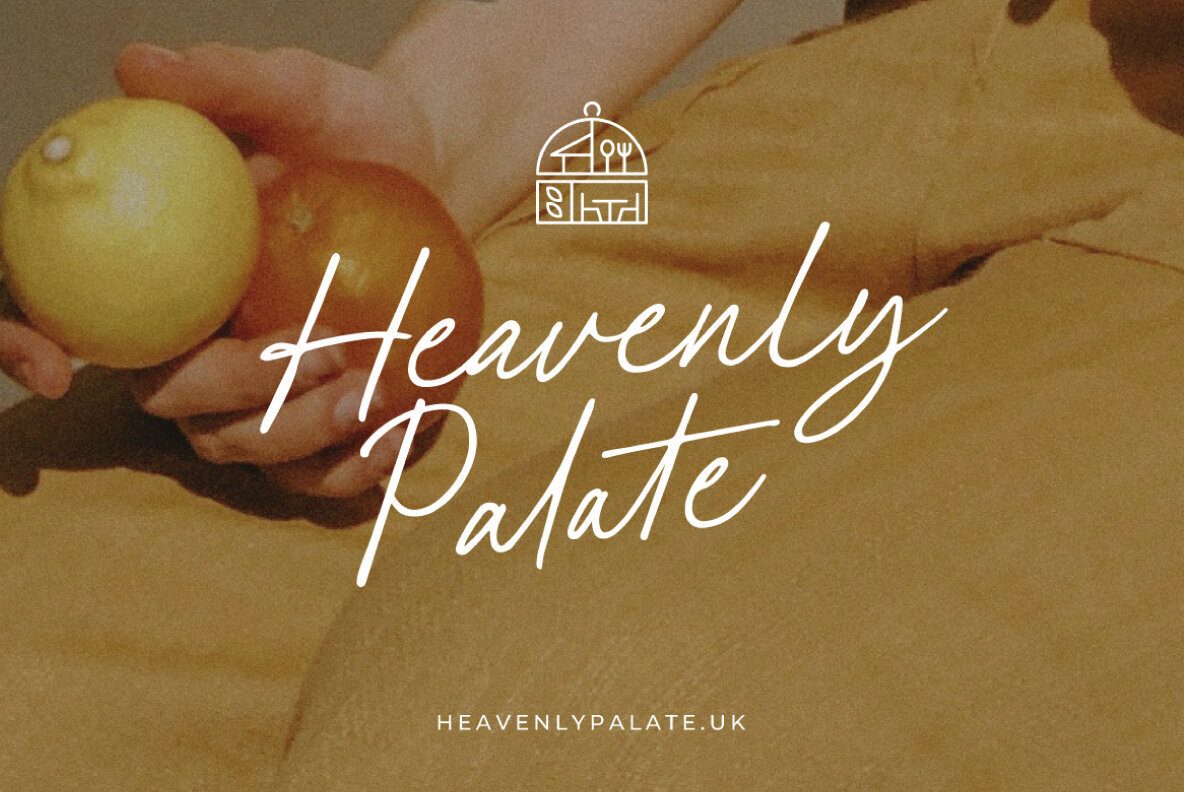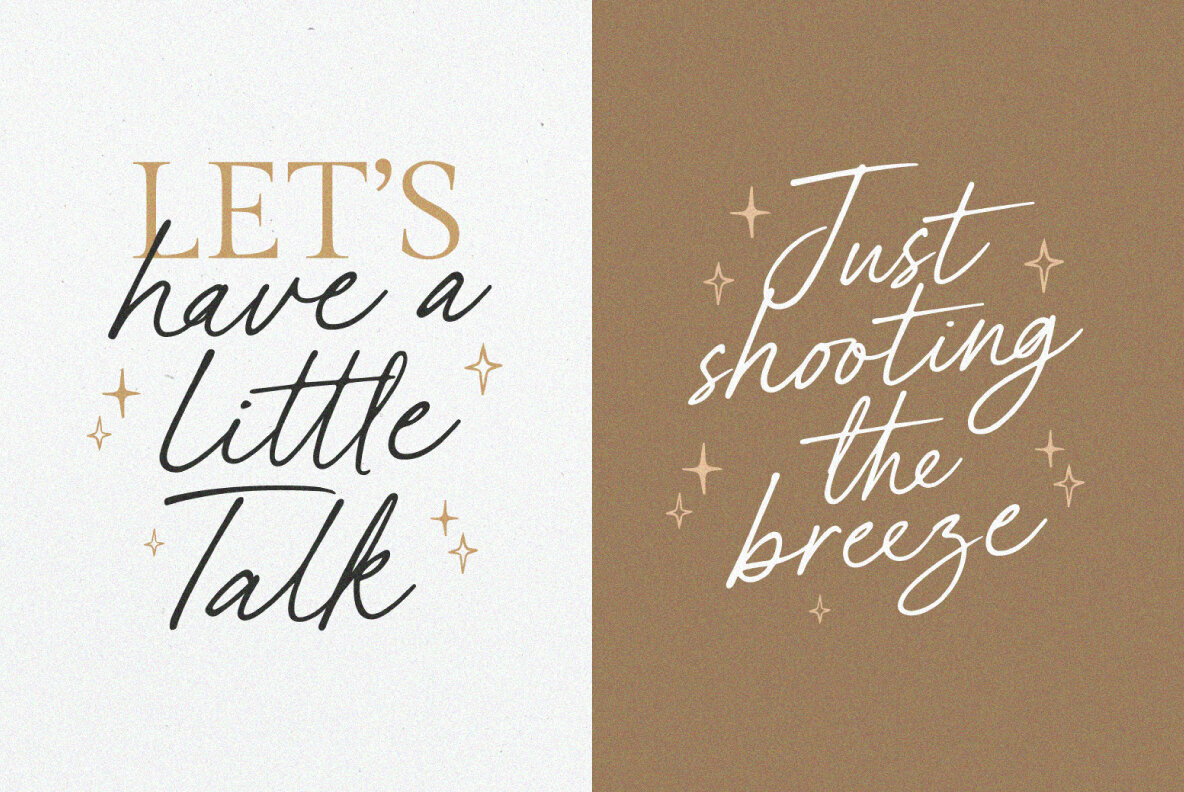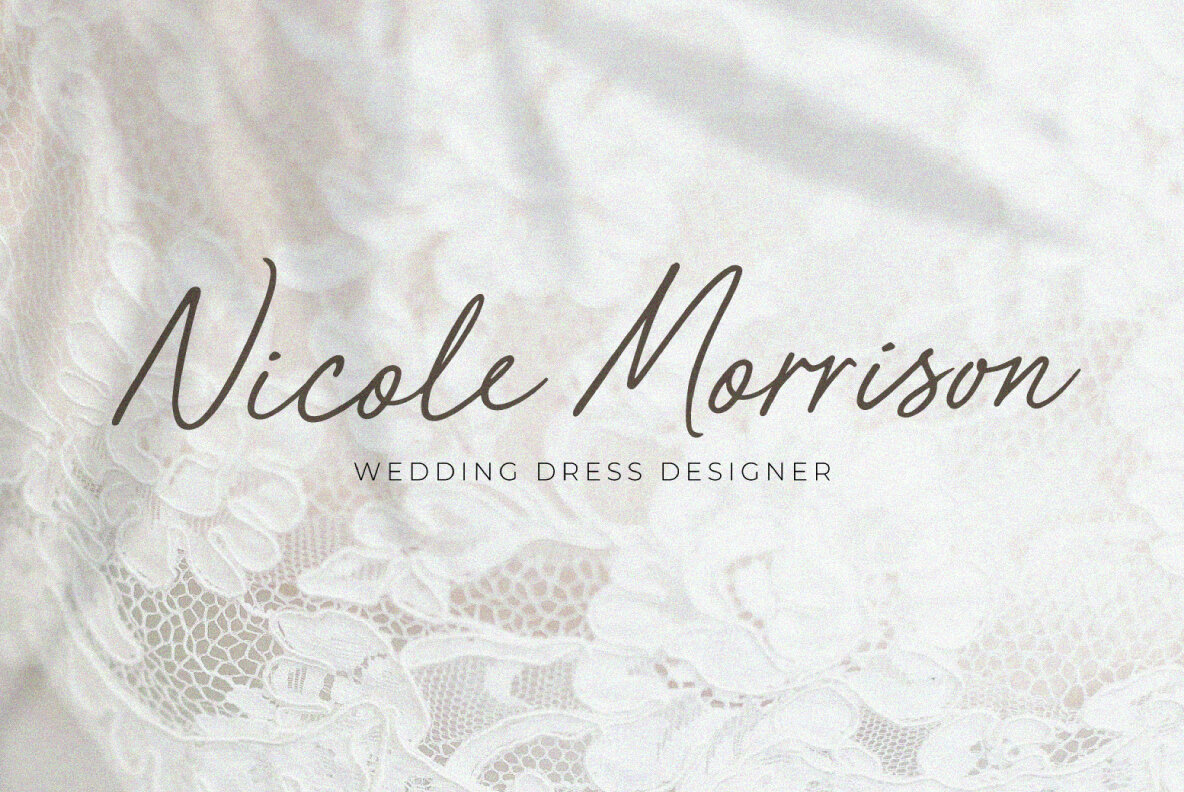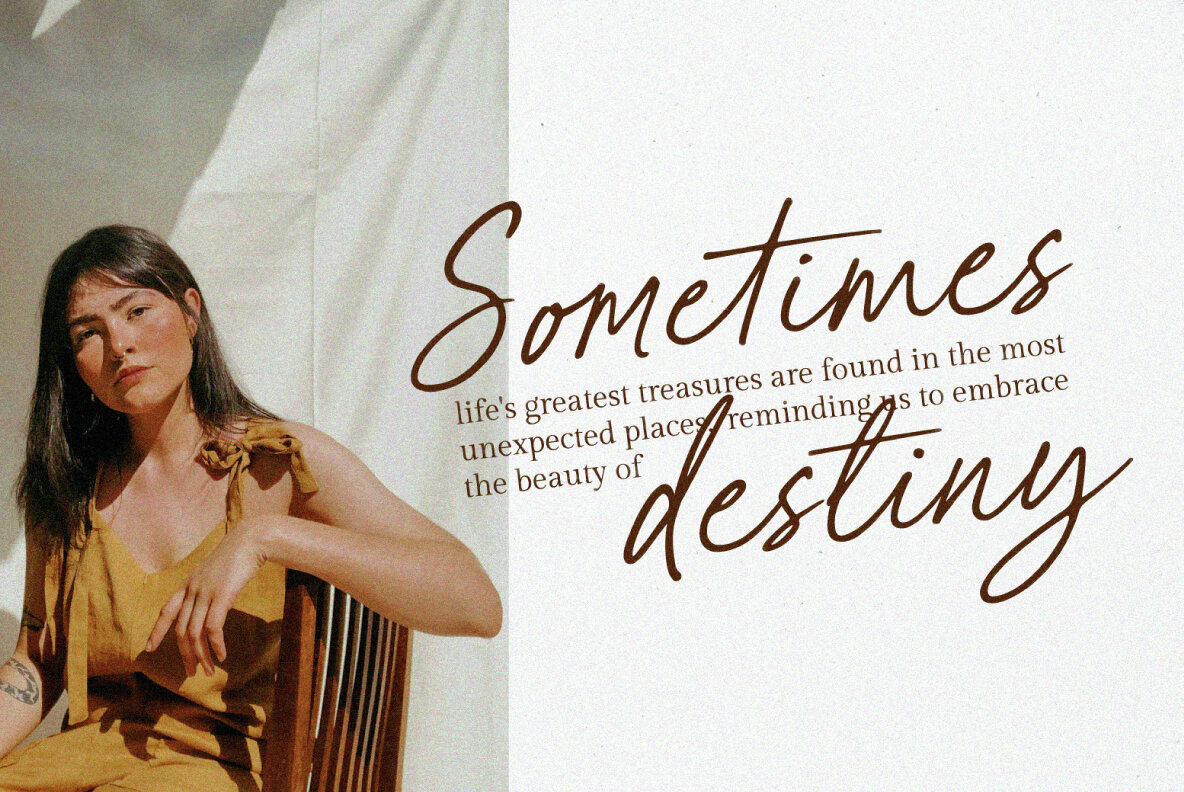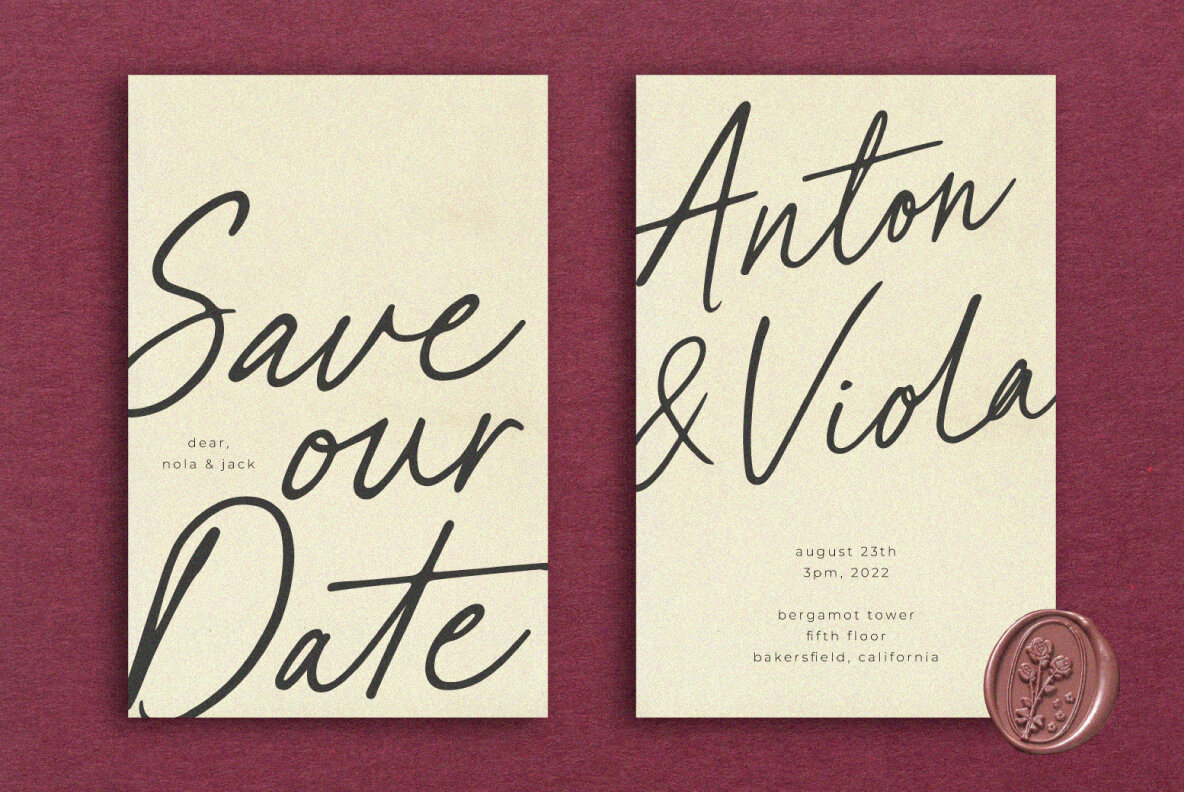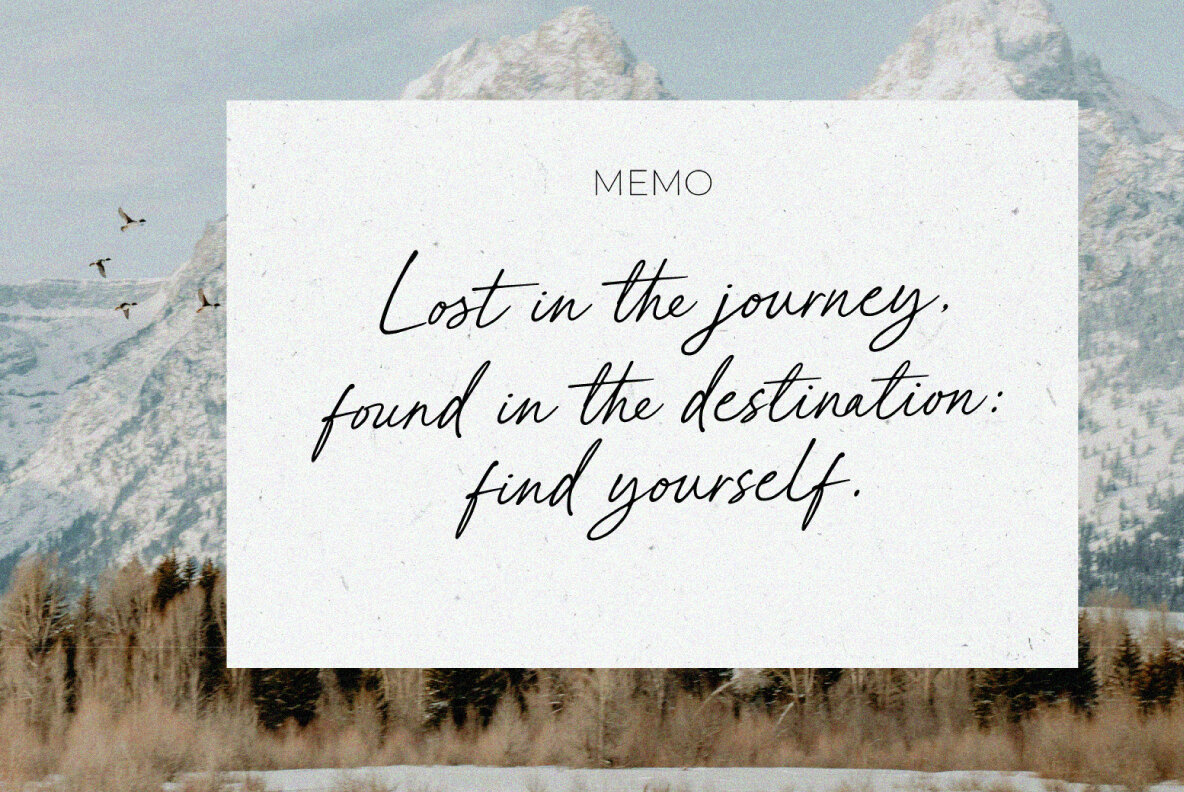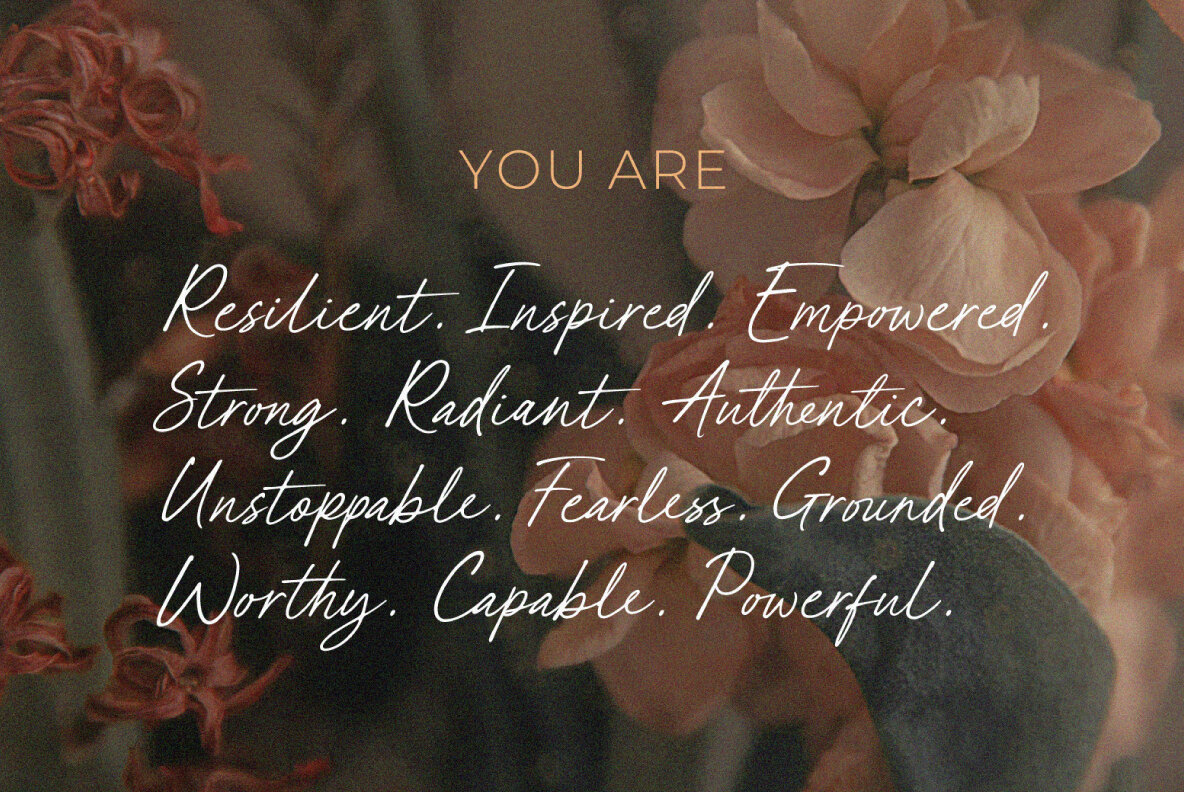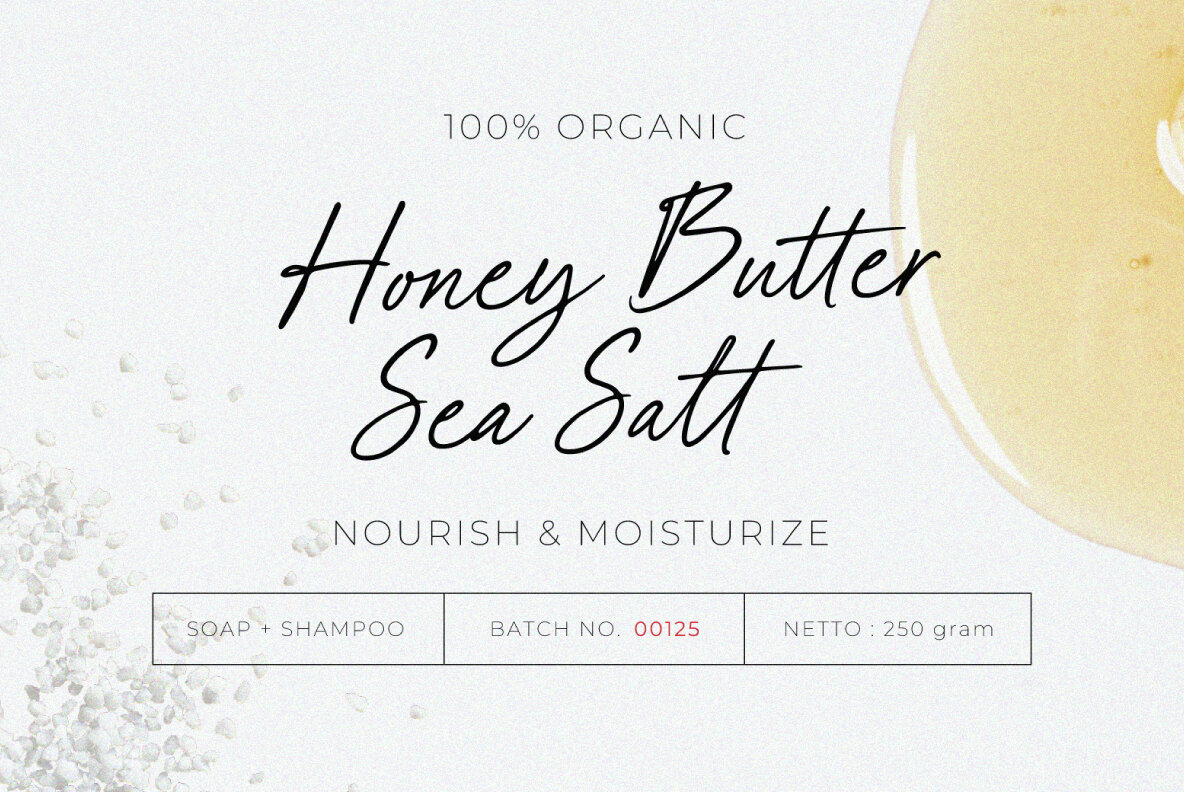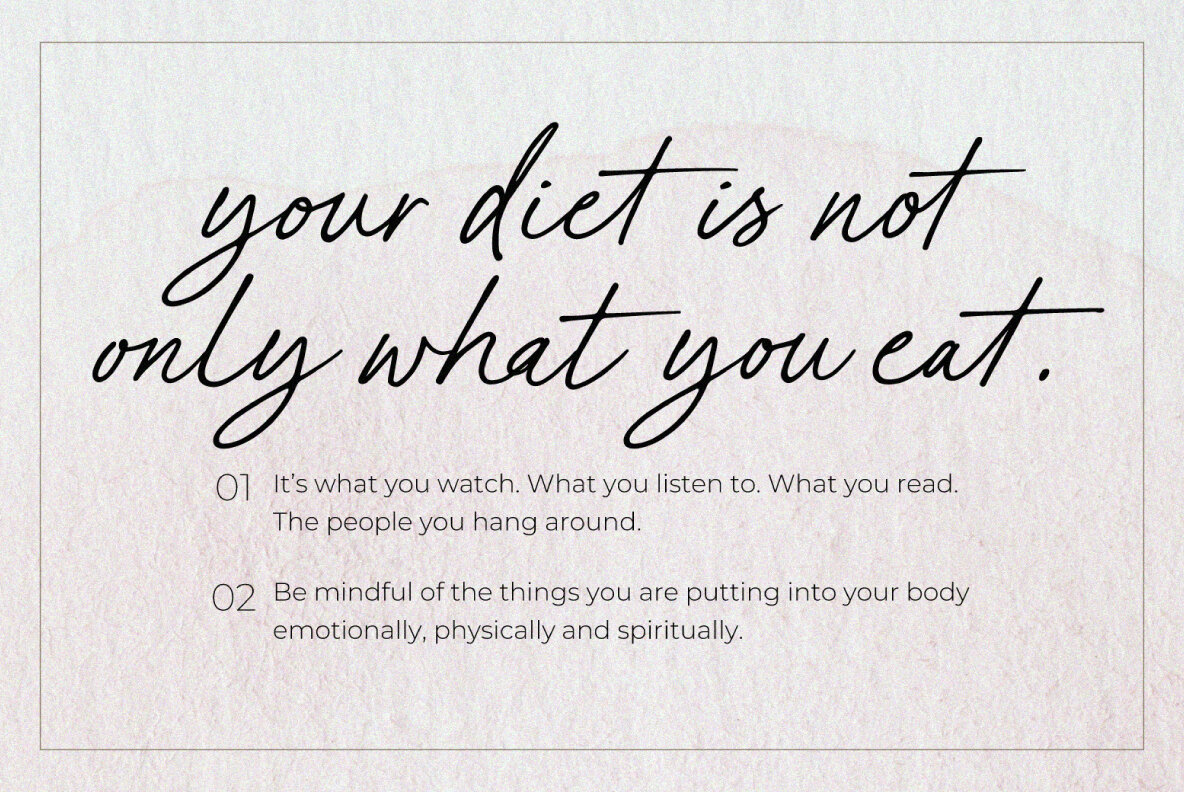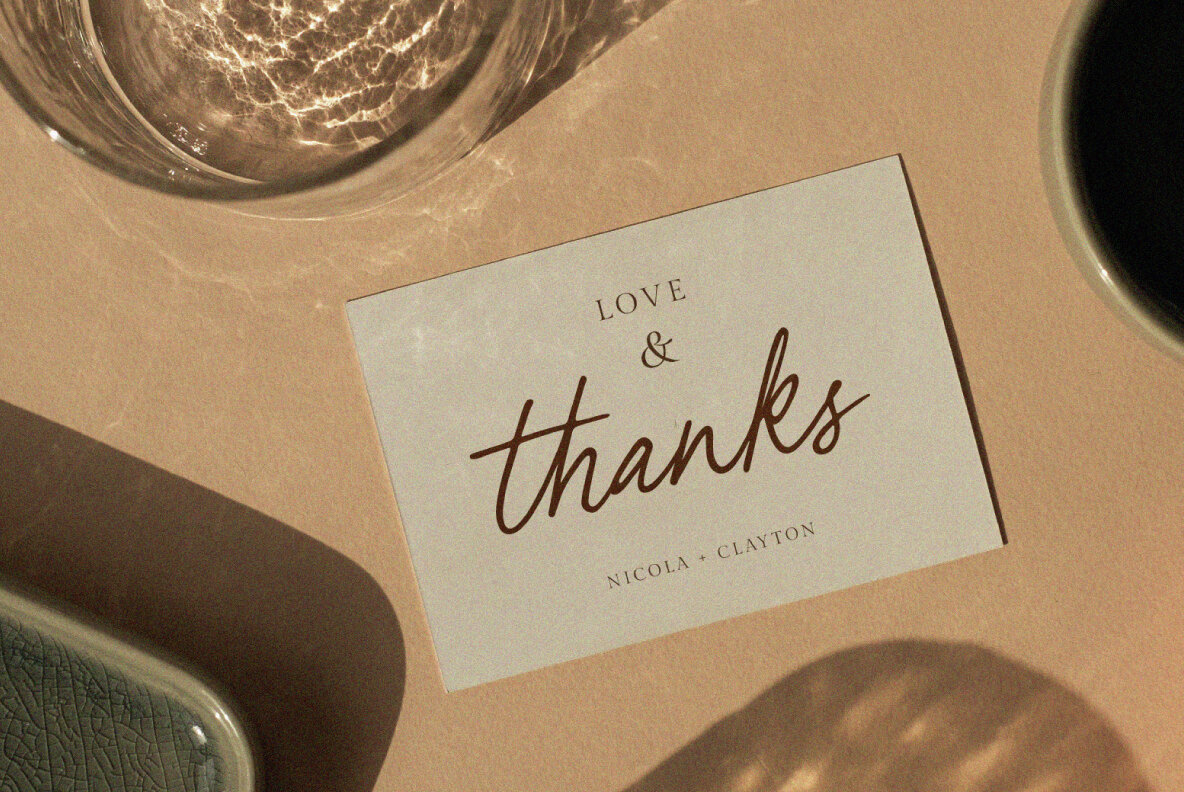
Blue Paradise Font
Blue Paradise Regular
Blue Paradise Script artfully merges sophistication with an authentic handwritten style. Featuring 77 meticulously crafted ligatures, each stroke seamlessly connects to the next, exuding both elegance and charm. Its natural appearance embodies the essence of handwritten script, evoking warmth and personality. This font enriches any design, ideal for invitations, branding, or editorial projects, with its touch of timeless beauty and character.Blue Paradise: Sophisticated Handwritten Script